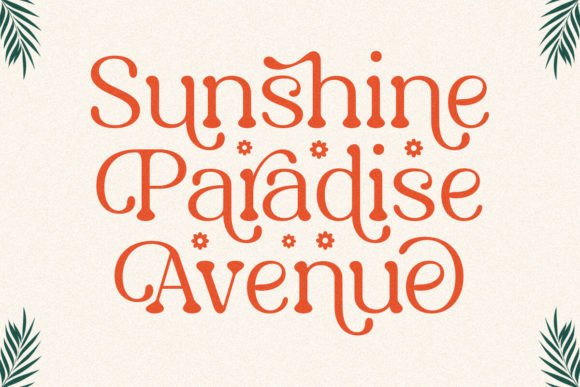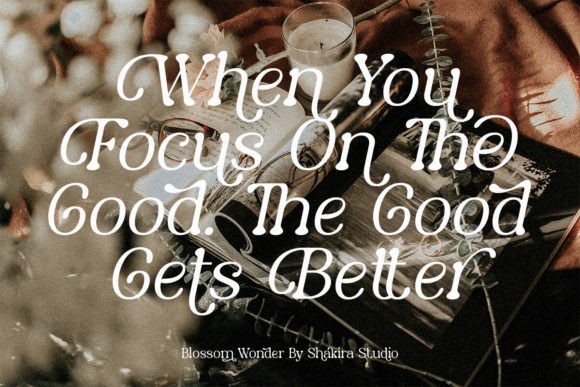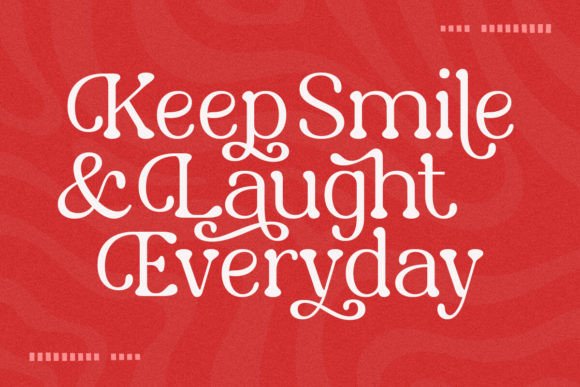
Introduction to Blossom Wonder Font
Discover the elegance of Blossom Wonder, a handdrawn serif font designed with unique alternates and ligatures.
Perfect for branding, logo design, and creative projects, this font blends classic charm with a modern twist Enhance your designs with the stylish and artistic flair of Blossom Wonder today.
Key Features of Blossom Wonder Font
Why Choose Blossom Wonder Font?
Blossom Wonder Font offers exceptional quality and versatility, making it a valuable addition to your design toolkit. Whether you’re creating for personal projects or commercial use, Blossom Wonder Font delivers professional results.